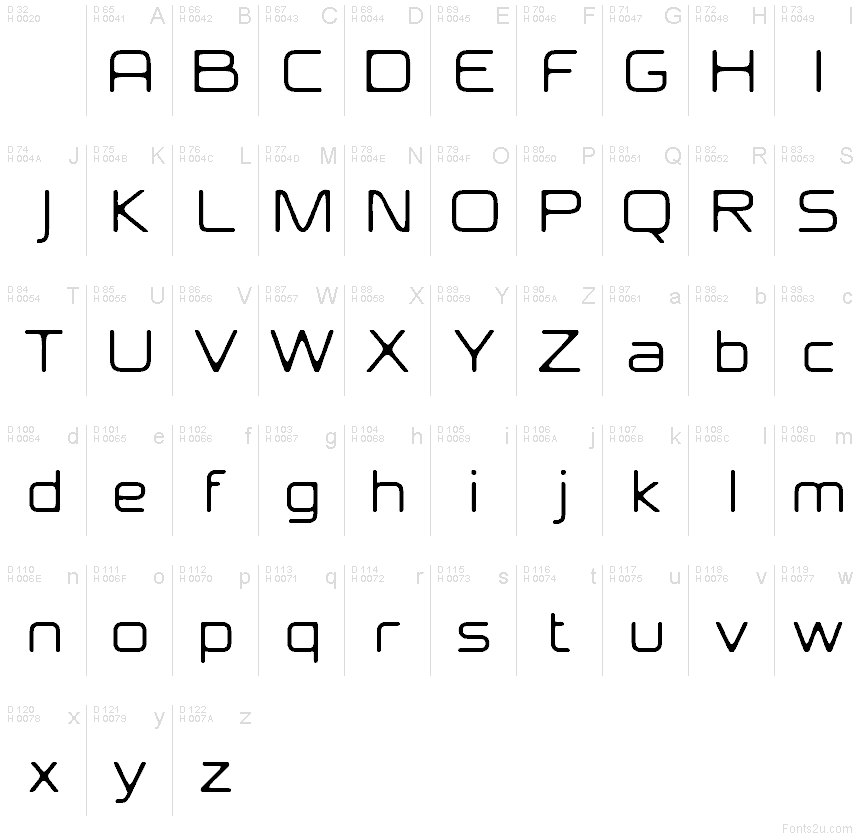
MegatransRoundedDrawn-Regular Demo
Megatrans Rounded Drawn font by Craft Supply Co. is a futuristic modern display font imagined while keeping technical designs in mind. Characterized by expanded width, minimalistic geometric letterforms, clean strokes, and undeniable legibility. This professional typeface gives off a neat visual appearance for print and digital applications.